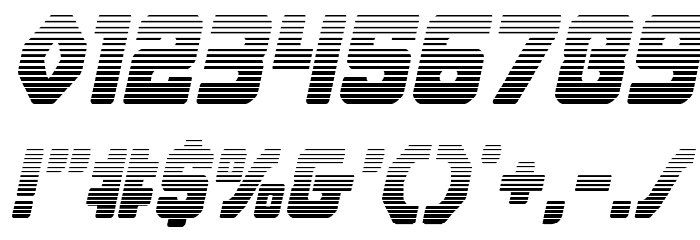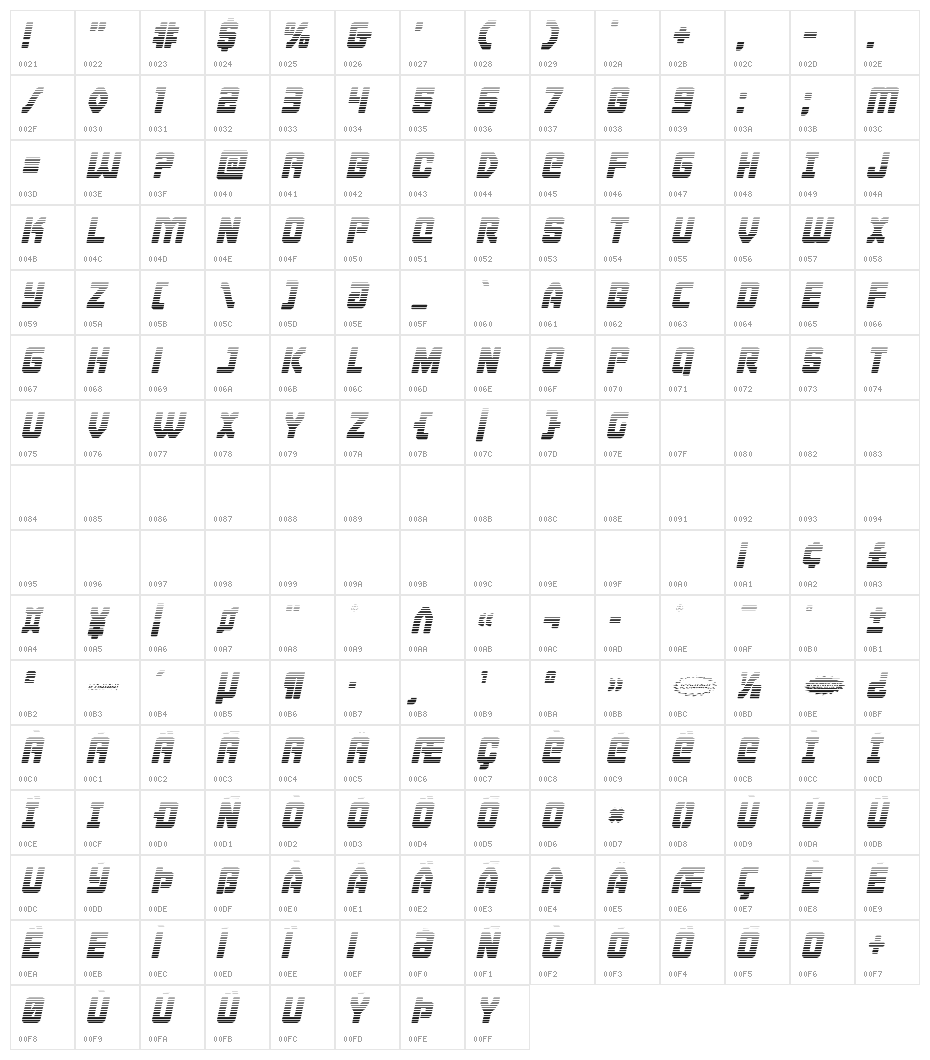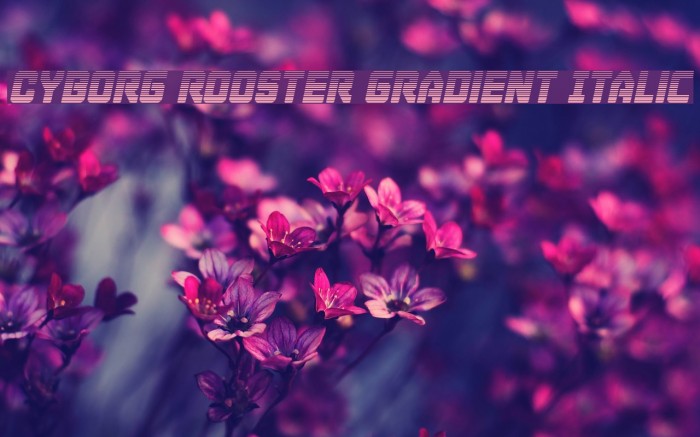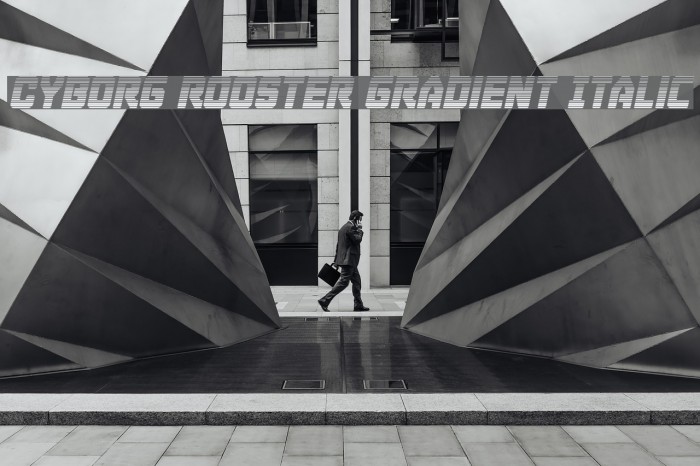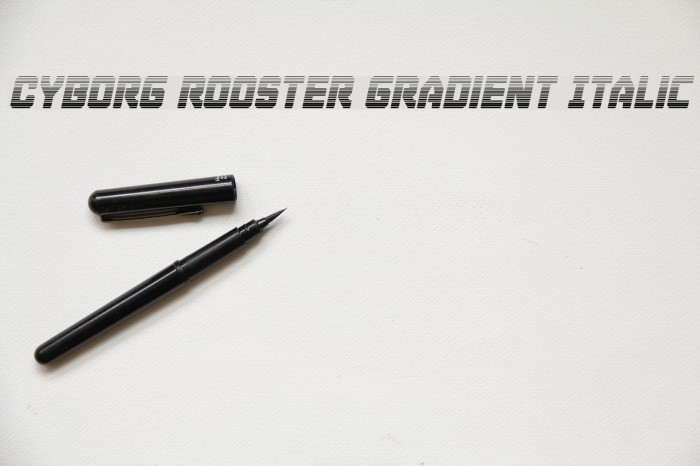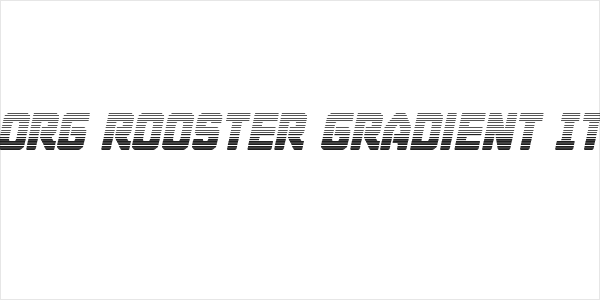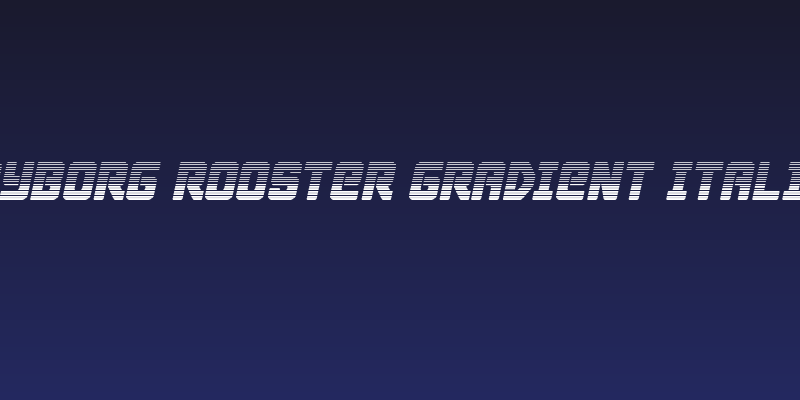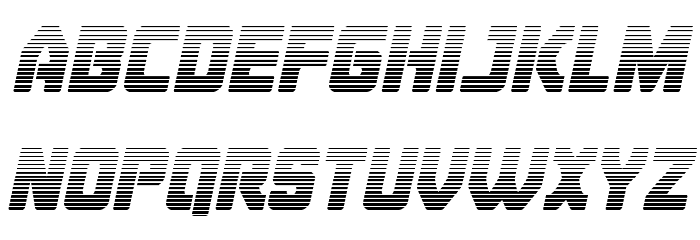
Cyborg Rooster Gradient Italic Font
Cyborg Rooster Gradient Italic Description
This font features a futuristic and dynamic design with a distinct gradient effect created by horizontal lines. The characters are bold and italicized, giving them a sense of motion and energy. The uppercase and lowercase letters, as well as numbers and special characters, maintain a consistent style that emphasizes a modern, tech-inspired aesthetic. The use of horizontal lines not only adds texture but also creates a unique visual rhythm across the text. This font is ideal for projects that require a bold statement and a contemporary feel.
| Proposed Projects | Ideal for sci-fi themed designs, tech branding, video game titles, and futuristic posters. |